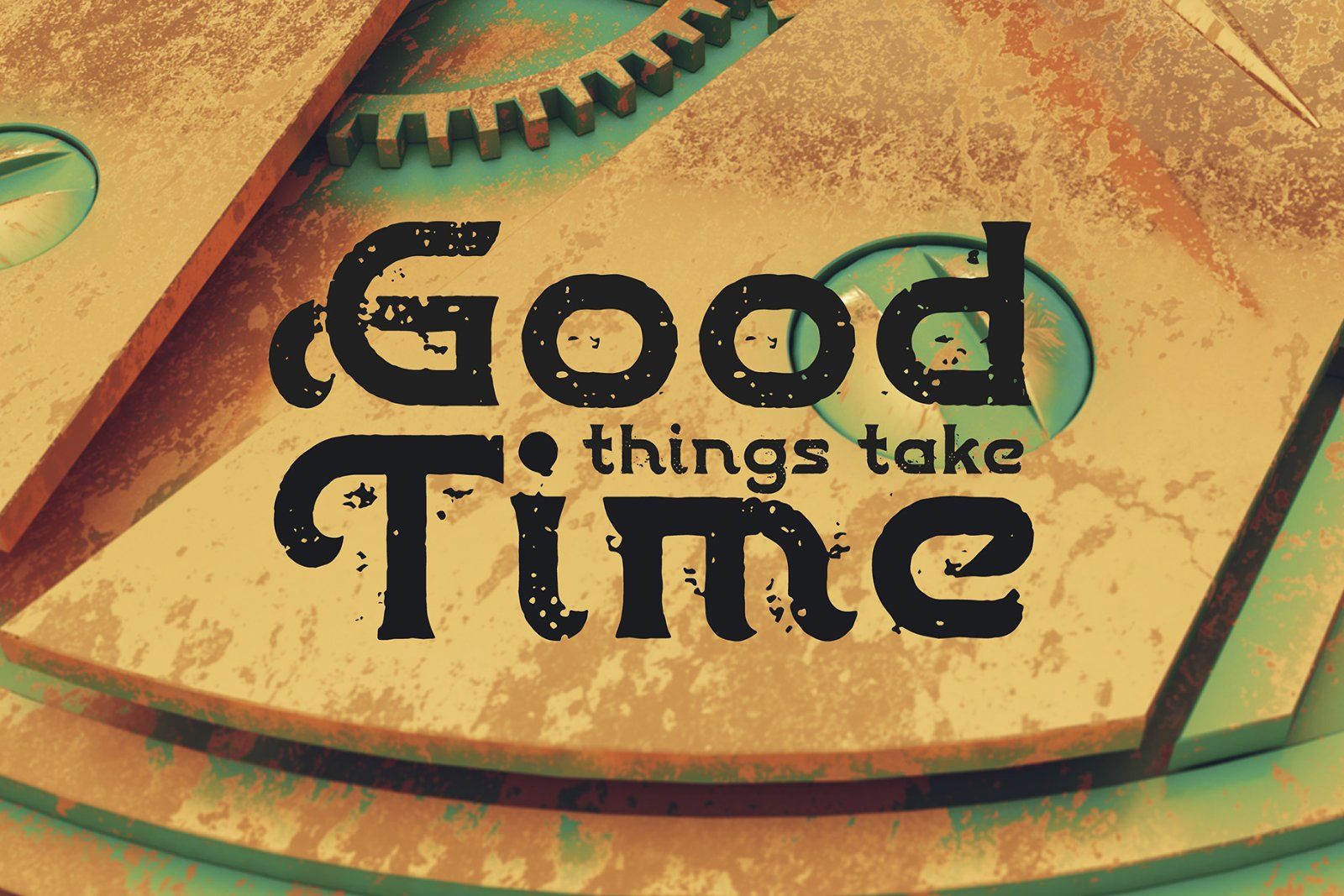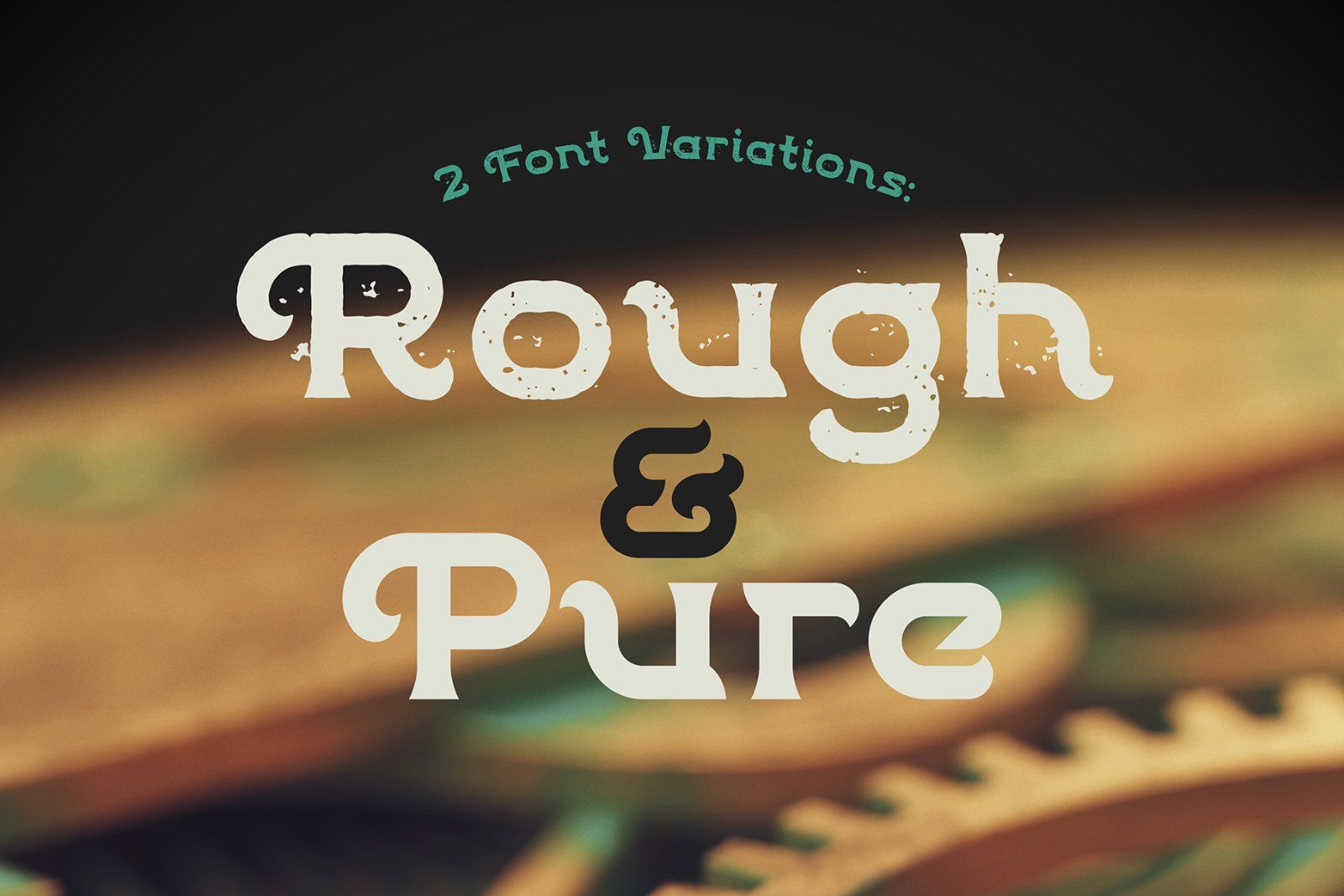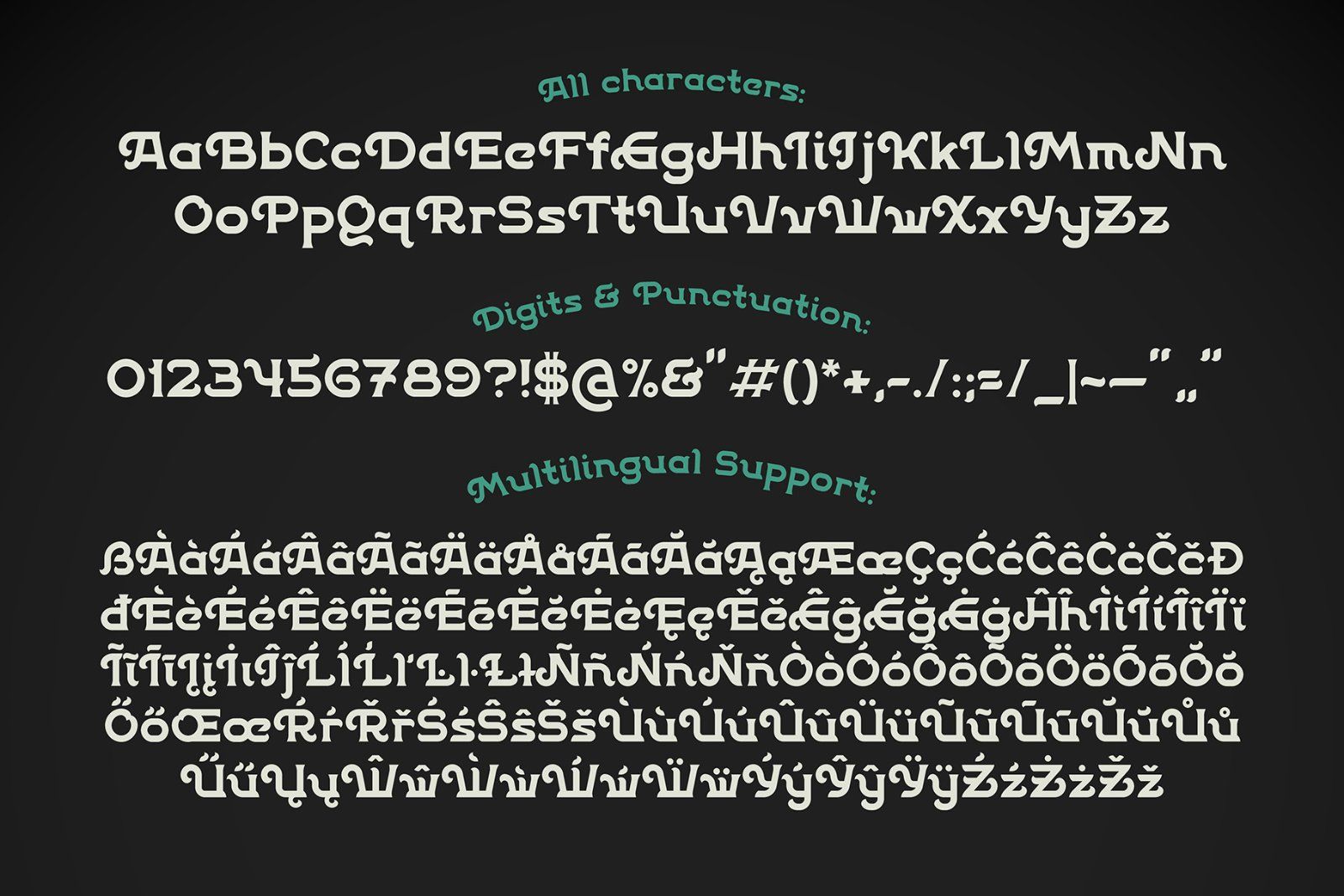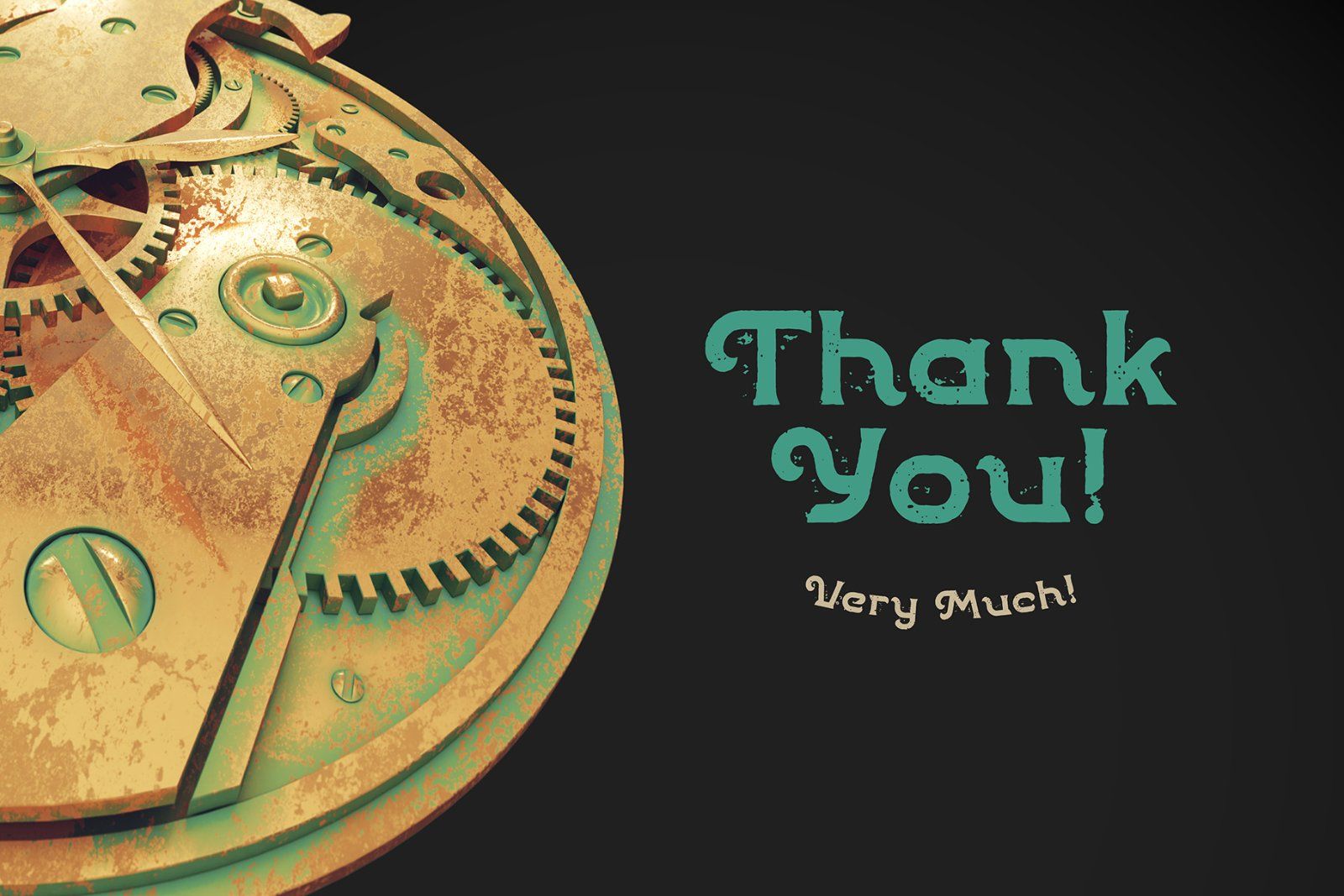
Hi! Introducing another one font set named "Patina". It has two variations - with pure simple glyphs and with rough textured effect. Both of them has a multilingual support: support (all available characters you can see on the 3rd screenshot). Also, as a bonus, you will get a 3d rendered old metal watch gears, covered with nice patinated effect.